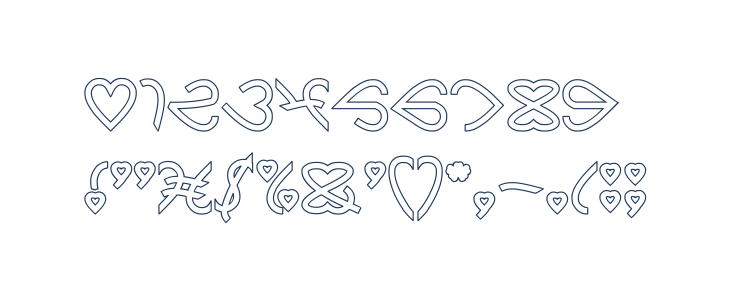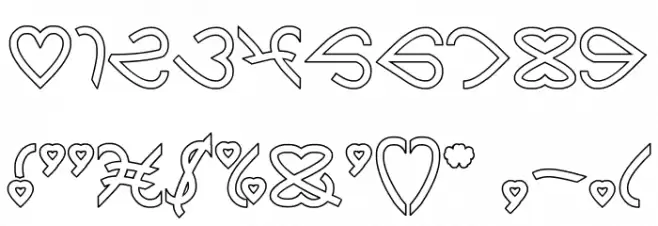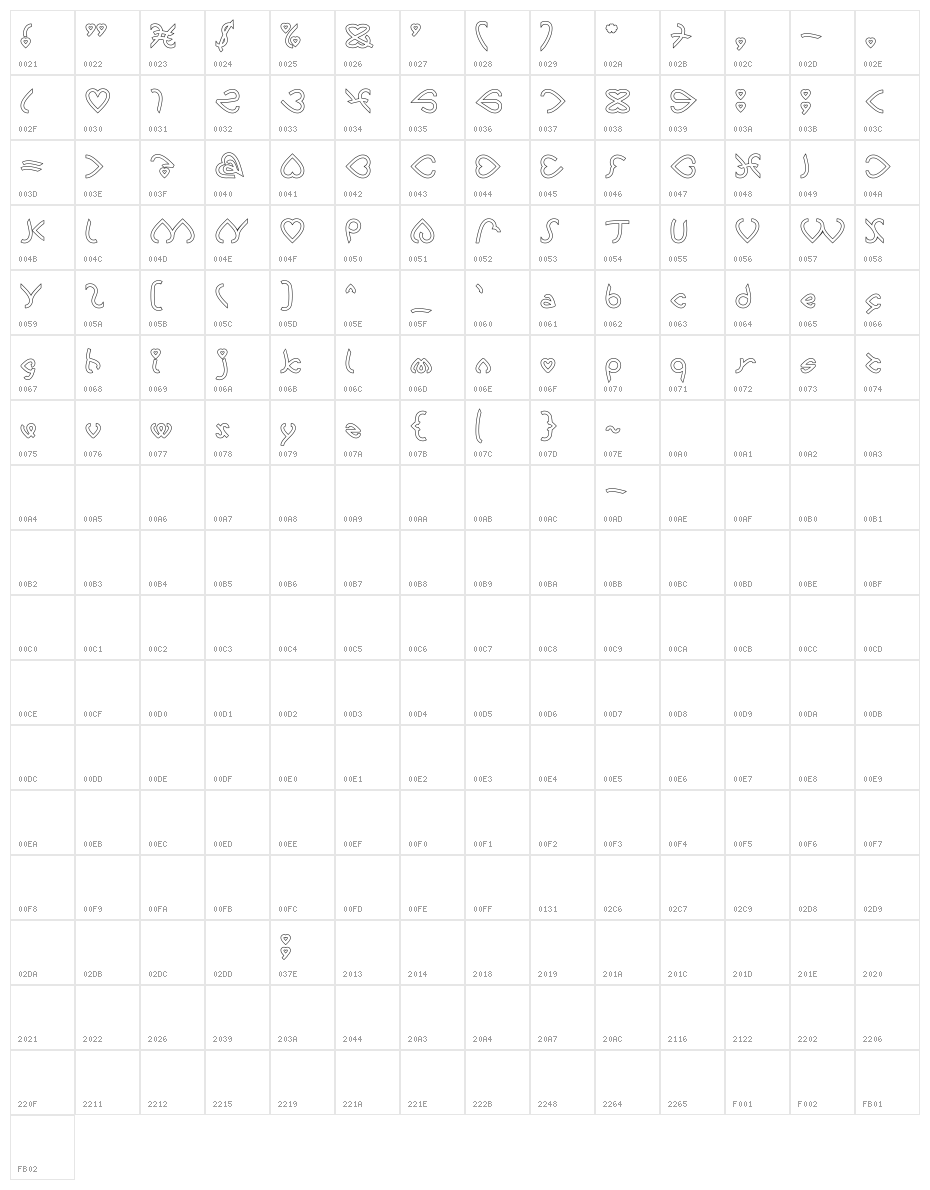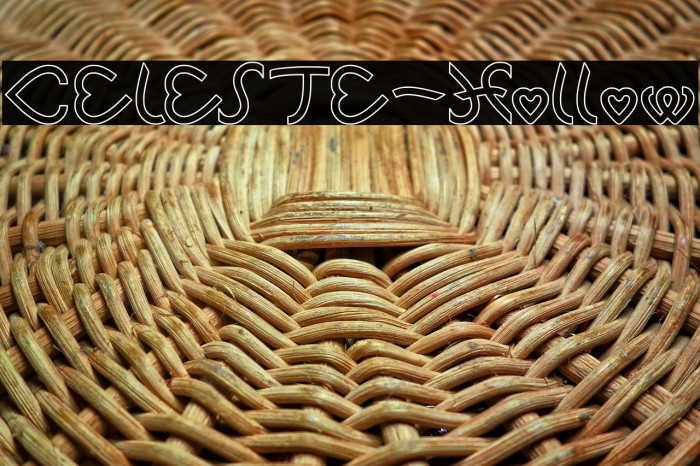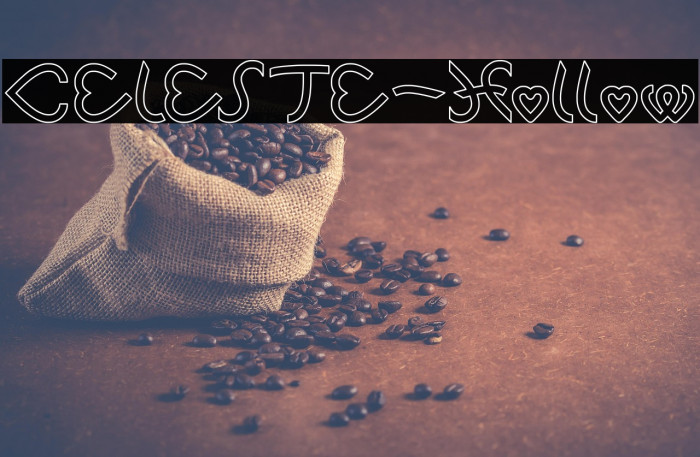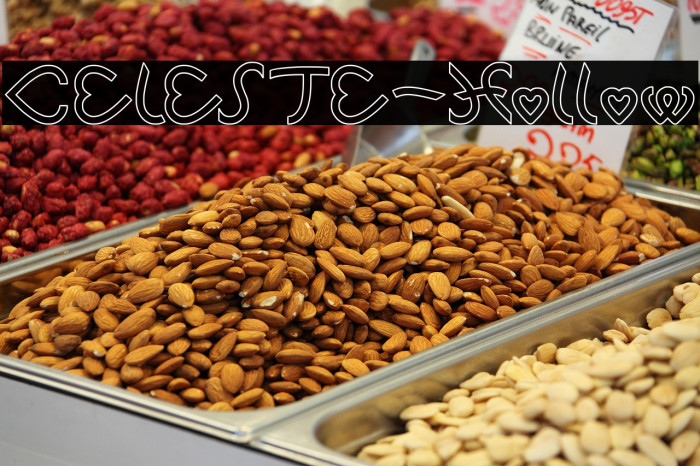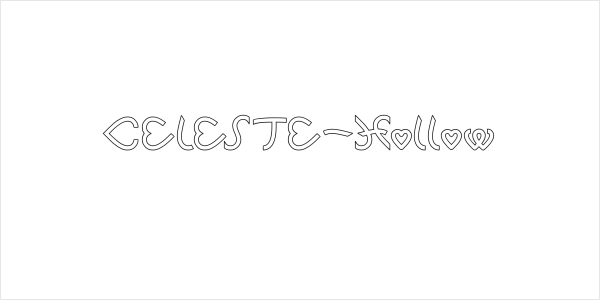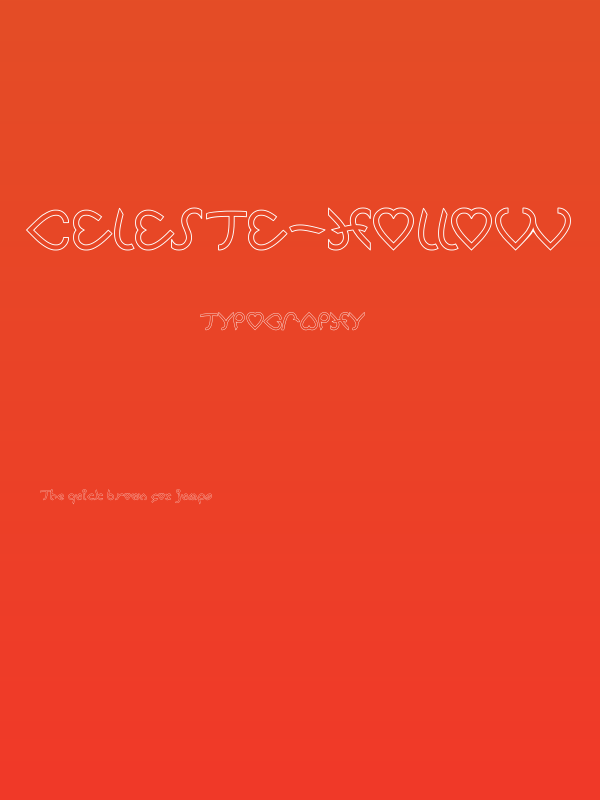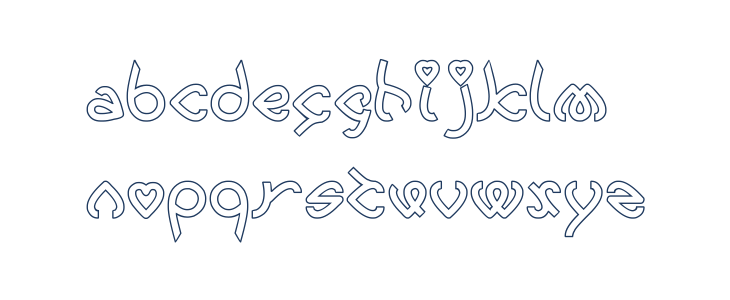
CELESTE-Hollow Font
CELESTE-Hollow Description
This decorative font features a playful and whimsical design, characterized by its hollow, heart-shaped elements integrated into each character. The uppercase and lowercase letters maintain a consistent theme, with curves and loops that create a sense of movement and fluidity. The numbers and special characters continue this theme, incorporating heart motifs and unique shapes that add to the font's charm. The overall design is light-hearted and fun, making it ideal for projects that require a touch of romance or playfulness. The hollow nature of the characters gives it a unique aesthetic, allowing for creative use of color and background to enhance its visual appeal.
A whimsical, heart-themed decorative font with hollow characters from Uncategorized fonts.
- Font: CELESTE-Hollow
- Proposed Projects: Ideal for Valentine's Day cards, wedding invitations, playful branding, children's book covers, and romantic-themed events.
- Overall Style: Playful, Romantic
- Use Case: Headlines, Logos, Invitations